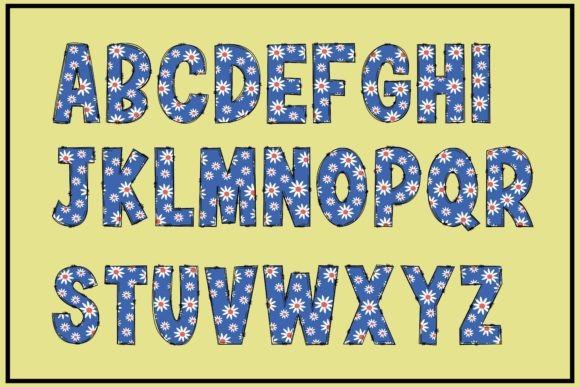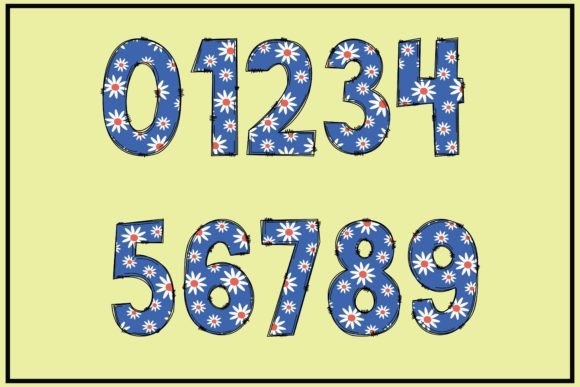
Introducing Daisy Flow Font: The Ultimate Addition to Your Design Library
Are you tired of using the same old fonts in your designs? Look no further! We’re excited to introduce the Daisy Flow Font, a bright, cute, and fun color font that’s sure to take your creations to the next level. This charming font is perfect for designers, crafters, and anyone looking to add a touch of whimsy to their work.
What Makes Daisy Flow Font So Special?
Daisy Flow Font is a color font (Opentype-SVG) that comes with a range of benefits. Its unique design and versatility make it an excellent addition to any font library. Here are just a few reasons why you’ll love working with Daisy Flow Font:
- Bright and Cheerful: This font is designed to bring a smile to your face. Its bright and cheerful design makes it perfect for projects that require a playful touch.
- Cute and Fun: The Daisy Flow Font is all about having fun. Its cute and quirky design is sure to add a touch of personality to any project.
- Versatile: Whether you’re working on a graphic design project, crafting, or creating digital art, this font is sure to impress.
| Font Name | Daisy Flow Font |
| Author | Color Alphabet |